Sachlette Signature
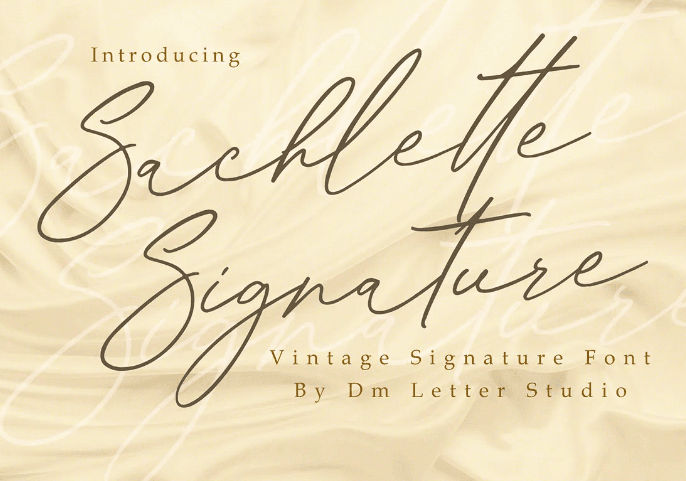
Sachlette signature font has an elegant and luxurious style with flowing letterforms and delicate curves. It’s perfect for sophisticated and charming projects that need touch of opulence.
Sophisticated Signature
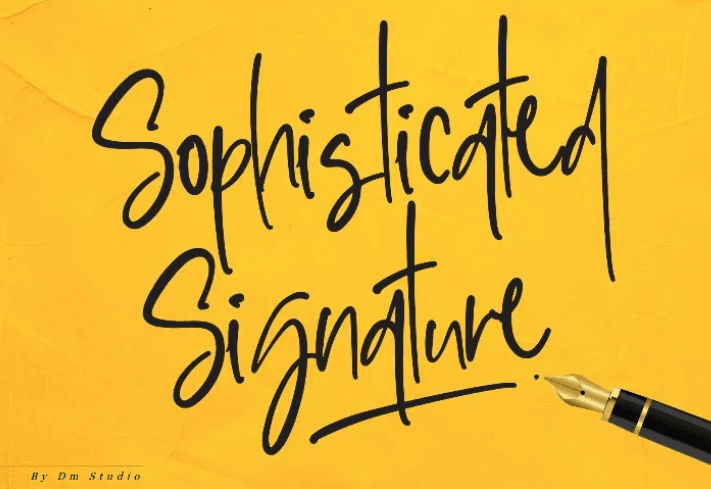
This font looks like a fancy signature that gives your writing a special and handmade touch with its elegant style.
Ramstay – Signature Font
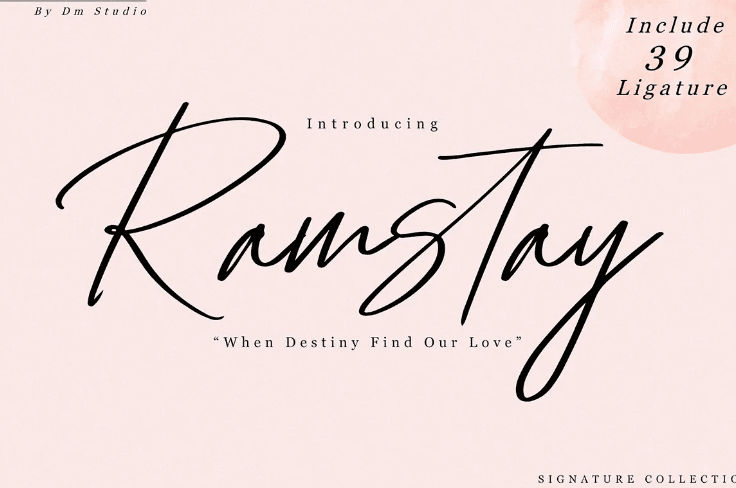
You can use this good signature font for designs like logos, invitations, or certificates to make them look classy and fancy.
Ronallatie – Elegant Signature Font
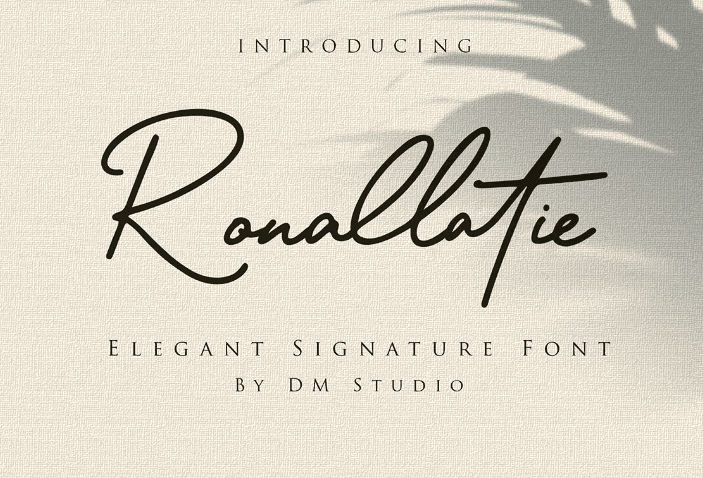
This font mimics a fancy handwritten signature that will add a special and genuine feel to your writing. It’s ideal for luxurious designs.
Bambang Signature V2.0 – Signature Font
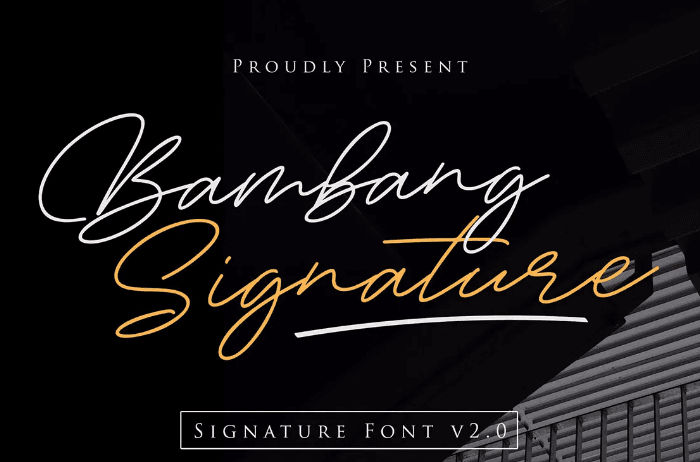
Bambang Signature V2.0 font is super fancy and elegant. Every letter looks like real handwriting that makes your designs feel authentic yet still extravagant.
Janethville – Signature Font
Janethville’s elegant and refined signature font with beautiful letters and loose strokes. It’s the best for classy and exclusive design projects.
Omarta – Signature Font
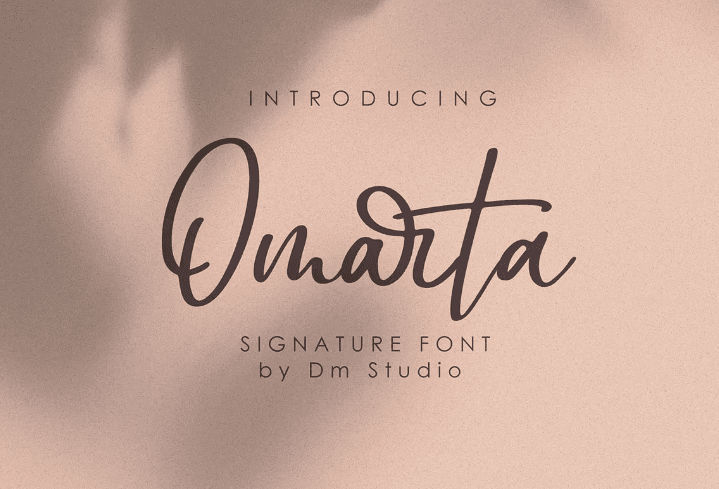
Look at the Omarta Signature Font, a typeface with letters resembling a gorgeous signature that adds a costly touch to branding, logos, and wedding invitations.
Graciast – Signature Font
The font looks like a real signature to add a personal touch to your writing with its natural strokes style and cursive.
Beauty Signature – Handwritten Font
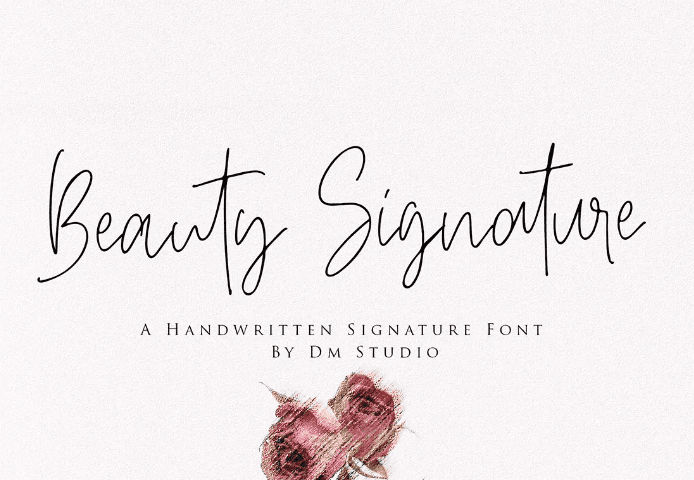
The Beauty Signature Font has extra letters that make your text look pretty and unique. It helps you make cool designs.
Carletone – Classy Signature Font
This is the best signature font that works well for projects like branding, weddings, fashion, and luxury goods. It gives a graceful and cheerful feel.
Bambang – Signature Font
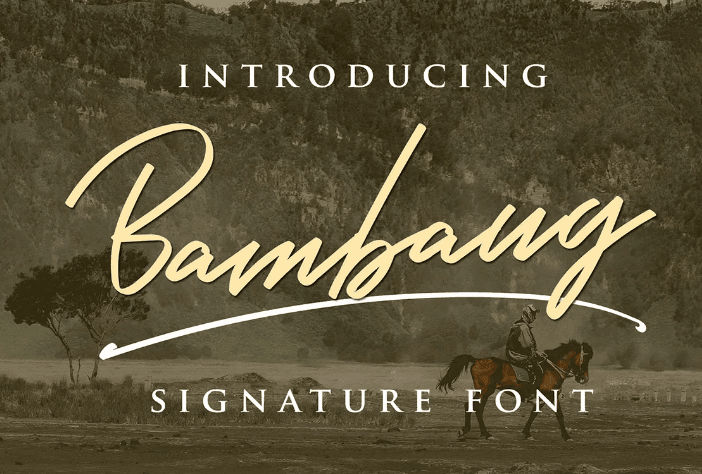
The font has uppercase and lowercase signature letter packs, so you can creatively combine both for delicate designs.
Autumn Crush Font
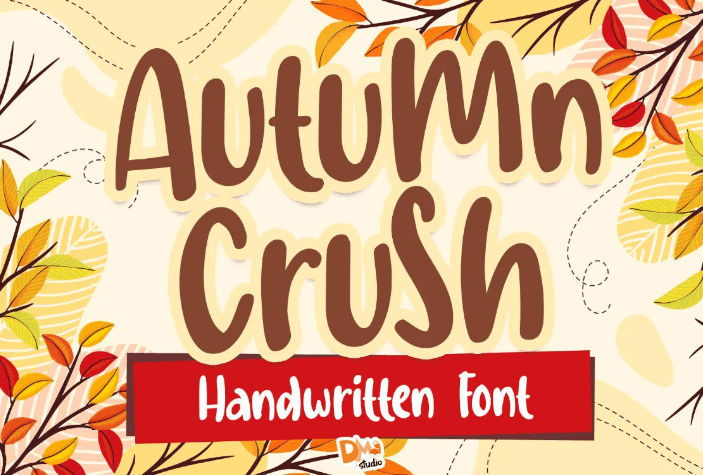
The Autumn Crush Font has a cozy, rustic style inspired by fall. It’s great for autumn-themed designs like invites and posters.
Snowy Days Font
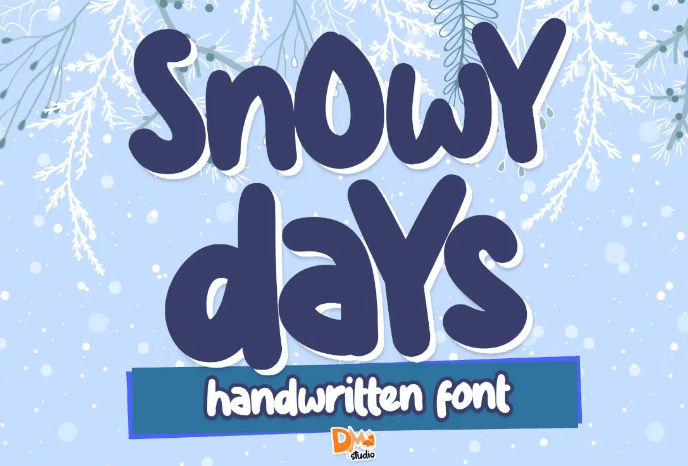
The font captures the casually peaceful feel of snowy days. Thus, it’s perfect for seasonal and holiday designs.
Little Daisy FontÂ
The cute Little Daisy Font is perfect for fun projects like invitations, logos, and branding. Also, it’s working well in both digital and print.
Almond Biscuit Font
The Almond Biscuit Font has thinly quirky letters, great for headings, logos, or text. It comes in different styles for design use.
Cute Fairy Font
Meet Cute Fairy Font, a magical typeface inspired by fairies that’s perfect for adding charm and playfulness to your designs. It’s versatile and lovely!
Bright Spring FontÂ
Craft your designs using the Bright Spring Font inspired by spring’s colors and energy for various design projects.
Baby Donuts Font
The Baby Donuts Font is a fun, cute typeface inspired by the pure baby and playfully tasty donut. You can use it to create sweet designs, like baby announcements.
Sweet Poetry Font
The Sweet Poetry Font has carefully made letterforms that give elegance and charm nuances with smooth lines and chic curves.
Happy Swirly FontÂ
Happy Swirly handwritten signature font mixes elegance and a fun vibe, with swirly designs addinga girly tone. It’s usable for invitations, branding, or creative displays.
Shadow Blush Font
The stylish signature font has a special shadow, making the text look 3D. It’s done nicely, giving depth without making the letters hard to read.
Rochette Font
The Rochette signature font is easy to read yet stylish, ensuring your message is clear and effective. It’s great for print and digital.
Sunkiss Heaven Font
This font is great for design with a playful or casual atmosphere. Use it in logos, invitations, and social media to enliven your designs.
Chantily Font